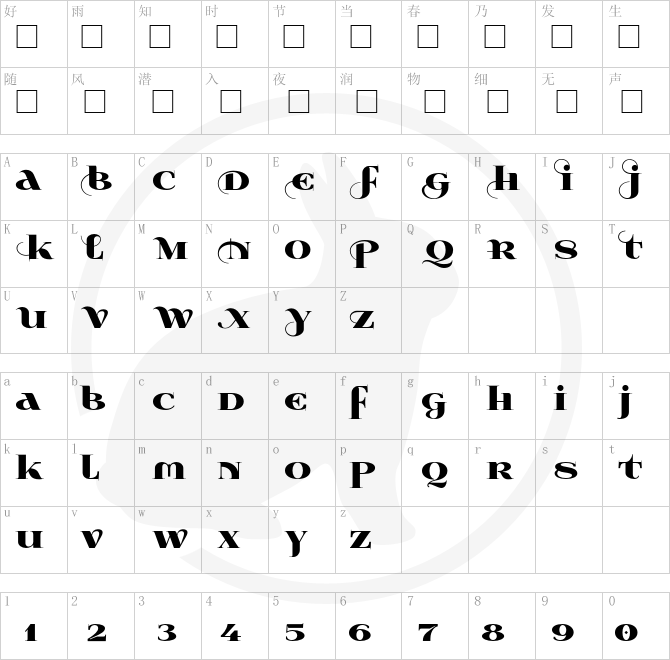
- Font Name:Wabroye
Wabroye.otf is a very beautiful artistic font, Wabroye.otf is widely used in the design and printing of various books and pictures,Wabroye.otf has a strong visual impact,Wabroye.otf is a commonly used font in newspapers, magazines and books, and is used in posters, e-commerce Poster design, store design, logo design, font design and other fields.Wabroye.